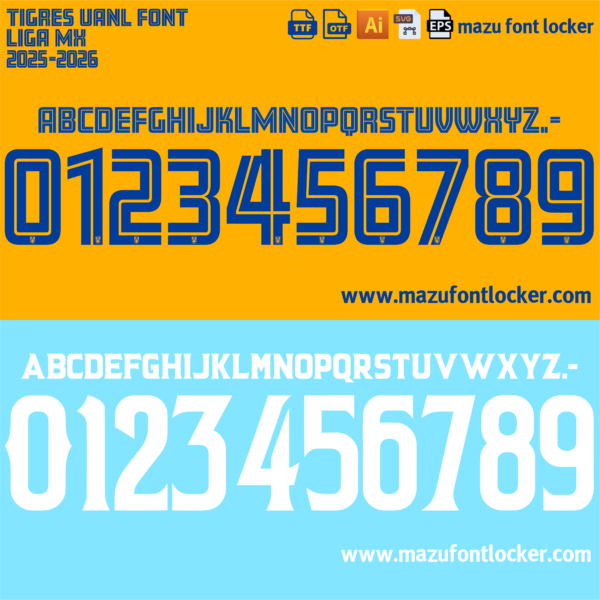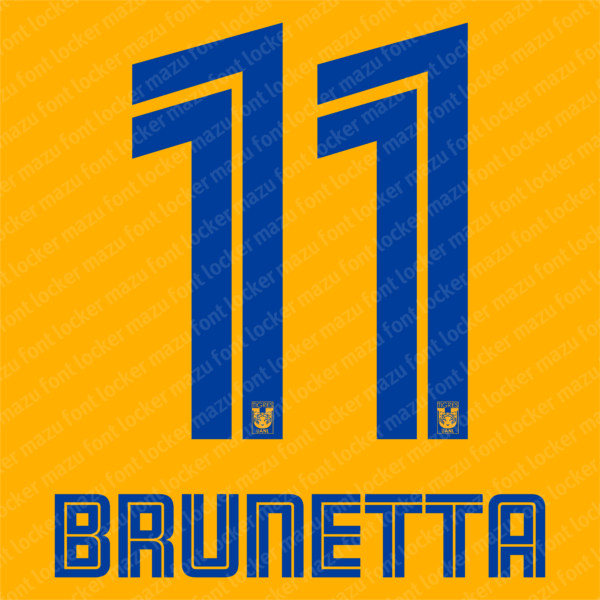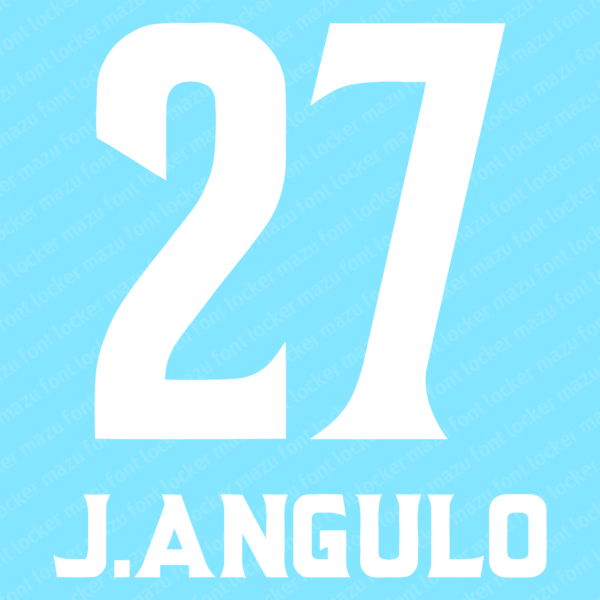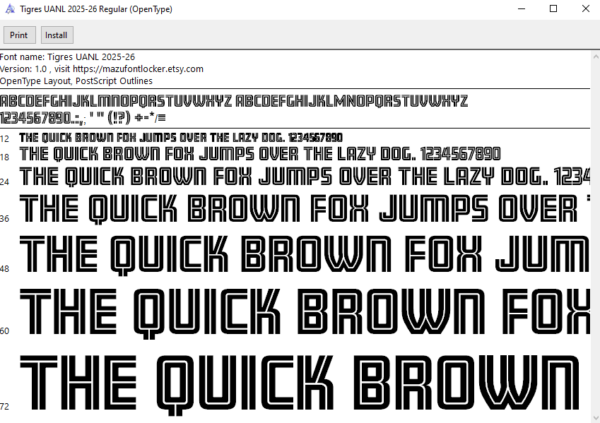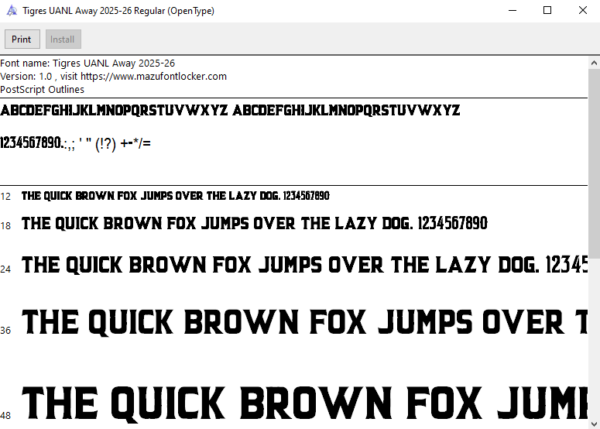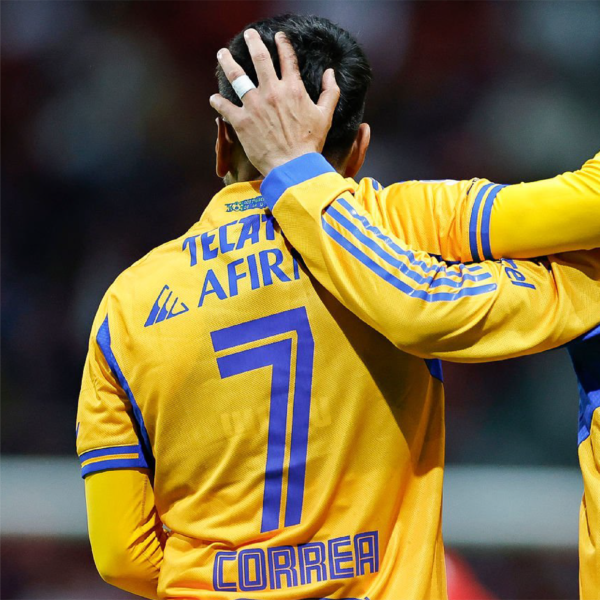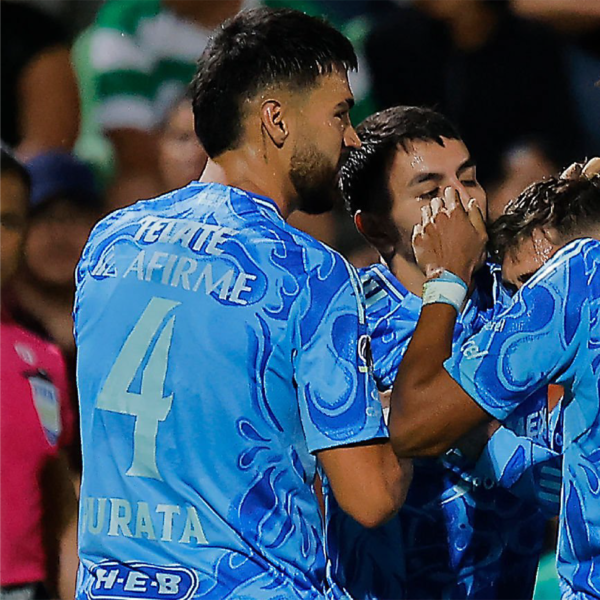
Tigres UANL 2025-2026 Font Vector – Bold Official Jersey Style for True Liga MX Fans
Download the premium Tigres UANL 2025-2026 Font and bring the powerful spirit of one of Mexico’s most iconic football clubs into your creative projects with authentic match-ready precision. Inspired by the official Liga MX jersey lettering used during the 2025/26 season, the Tigres UANL 2025-2026 Font delivers a bold, modern, and professional appearance perfect for football designers, jersey customizers, sports creators, and passionate Tigres supporters.
Whether you are creating custom football kits, fan merchandise, sublimation prints, posters, social media graphics, or digital sports artwork, the Tigres UANL 2025-2026 Font provides sharp scalability and clean detailing for premium-quality results. Elevate your football design collection with this stylish and highly authentic jersey font vector today.
- Authentic 2025-2026 Tigres UANL jersey lettering style
The authentic lettering style helps recreate the classic look of the Tigres UANL 2025-2026 kit with professional accuracy.
Unlike generic jersey fonts, this set is designed with a strong focus on authenticity and accuracy. Every detail is based on the original match lettering style used during the 2025-2026, helping designers and collectors create realistic football shirt designs.
This Tigres UANL 2025-2026 font vector set is designed for authentic football jersey customization and works perfectly for retro football projects, collector designs, and professional sportswear artwork.